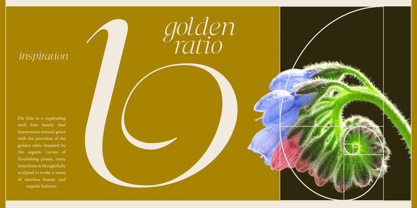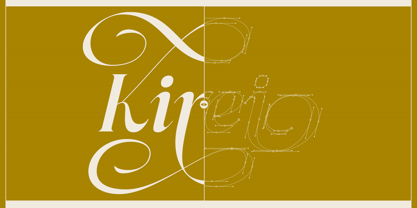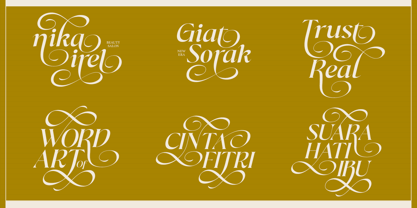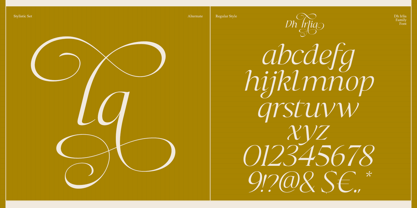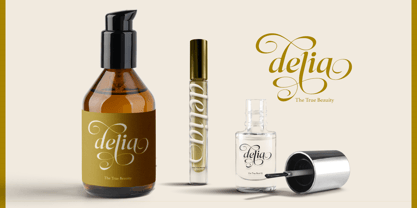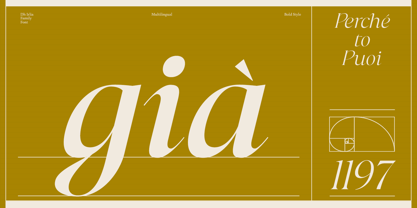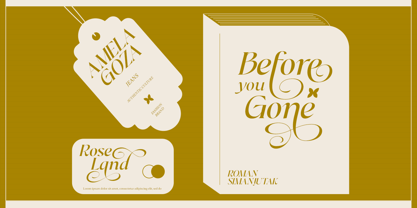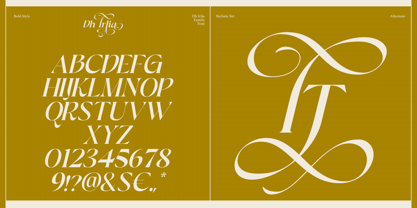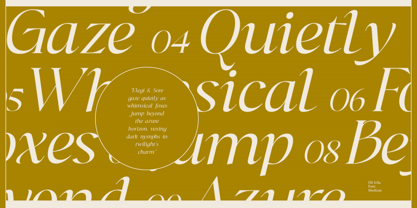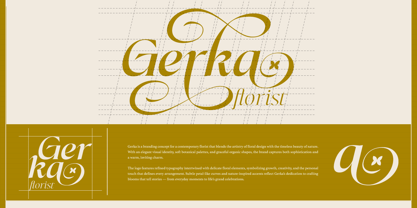
Dh Irlia is a sophisticated serif typeface family that combines fashion-forward elegance with expressive swashes. Designed with refined curves, graceful strokes, and a luxurious aesthetic, it is ideal for branding, fashion editorials, beauty packaging, wedding invitations, and high-end promotional design. Its balance of classical inspiration and modern refinement makes it a timeless choice for any creative project.
With 7 distinct styles — Thin, Extra Light, Light, Regular, Medium, Semi Bold, and Bold — Dh Irlia provides versatile typographic expression, from delicate to striking. Featuring uppercase and lowercase letters, numbers, punctuation, symbols, and multilingual support, this family ensures global usability while bringing a sense of charm, luxury, and sophistication to every design.
Dh Irlia Font Features:
7 Weights: Thin, Extra Light, Light, Regular, Medium, Semi Bold, Bold
105+ Swash Alternates
Letters, numbers, symbols, punctuation, special alternates